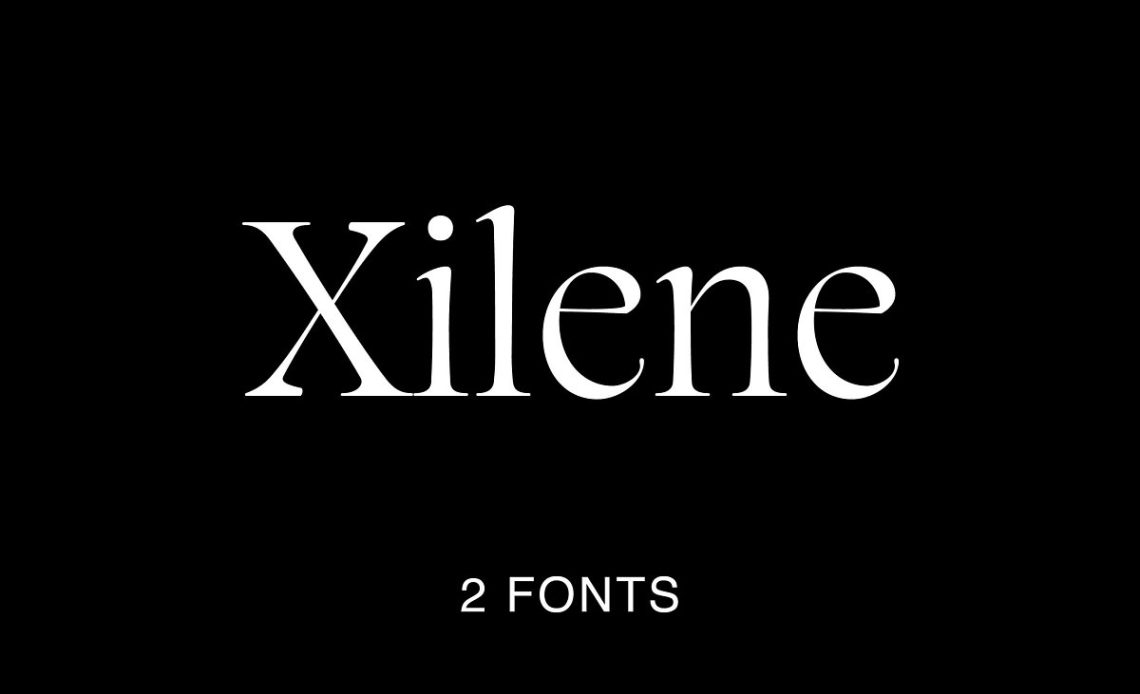
Are you tired of using the same old boring fonts for your projects? Look no further than Xilene - the elegant serif typeface created by Piotr Lapa. This stunning font family is inspired by 20th century calligraphy and transitional typefaces, bringing a touch of classic sophistication to any project.
With a big x-height value and sharp terminals, Xilene offers modern proportions and extreme stroke contrast with a diagonal stress. The result is a set of letterforms that are both elegant and polished, making it the perfect choice for fashion projects, headlines, titles, posters, packagings, covers, and logotypes.
Xilene comes in two styles - Roman and Italic - with extended Latin support and a 560+ glyphs set. Plus, with OpenType features and a webfont included, you can take your designs to the next level with ease. And, as an added bonus, Xilene comes with free updates, ensuring you always have access to the latest features and improvements.
It's important to note that Xilene is a display font, which means it's not the best choice for setting continuous text. Additionally, the Italic style is not intended for all caps text. But if you're looking to make a statement with your designs, Xilene is the perfect choice.